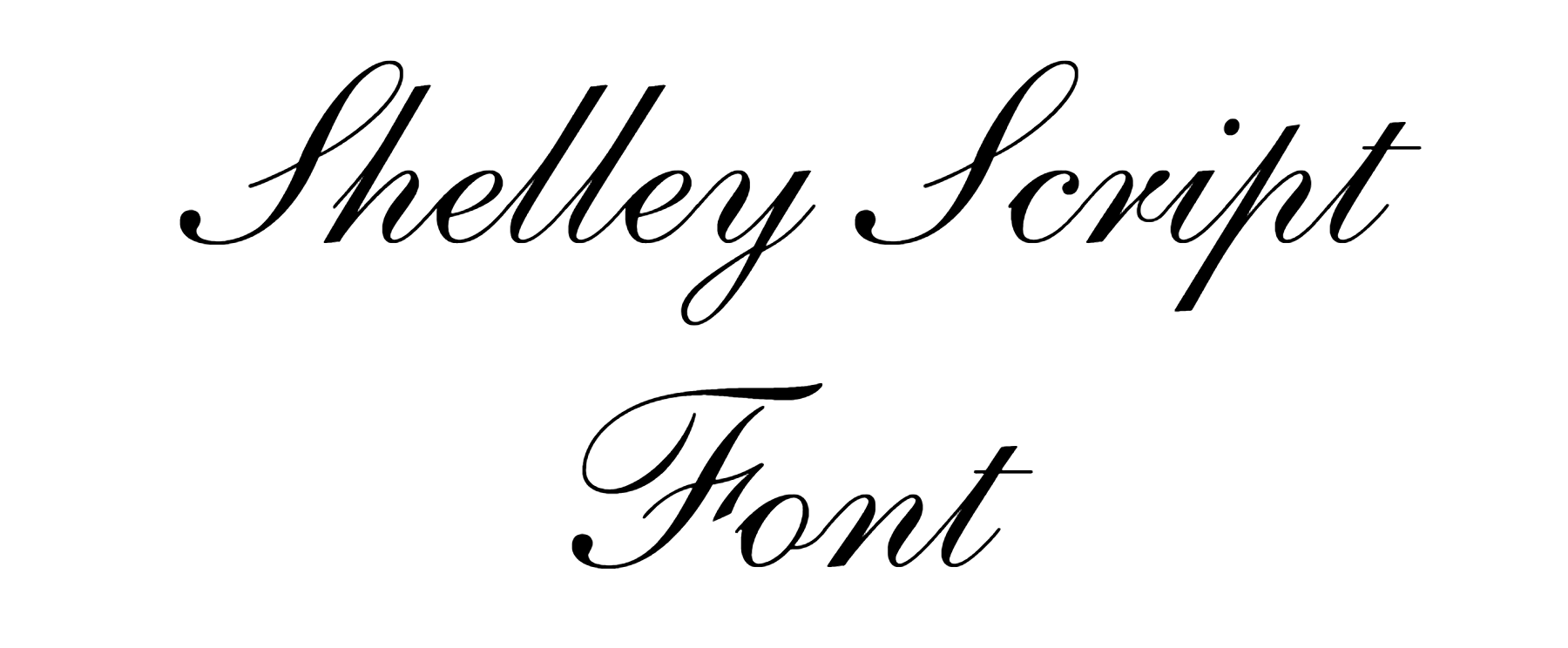
Shelley Script is a formal, elegant English Roundhand calligraphy typeface designed by the legendary British type designer Matthew Carter in 1972.
The font is a faithful revival of the exquisite, fluid handwriting style of 18th-century English writing master George Shelley. It is characterized by an extremely small x-height relative to its dramatically long, sweeping ascenders and descenders.
Shelley Script
Shelley Script is a calligraphy font made by Matthew Carter (2002).
- Designer: Matthew Carter
- Year: 2002 (from the copyright line in the font)
- OpenType features: Ligatures, swashes, one stylistic set and fractions
- Extra characters: 130 copy-and-paste alternates (Private Use Area)